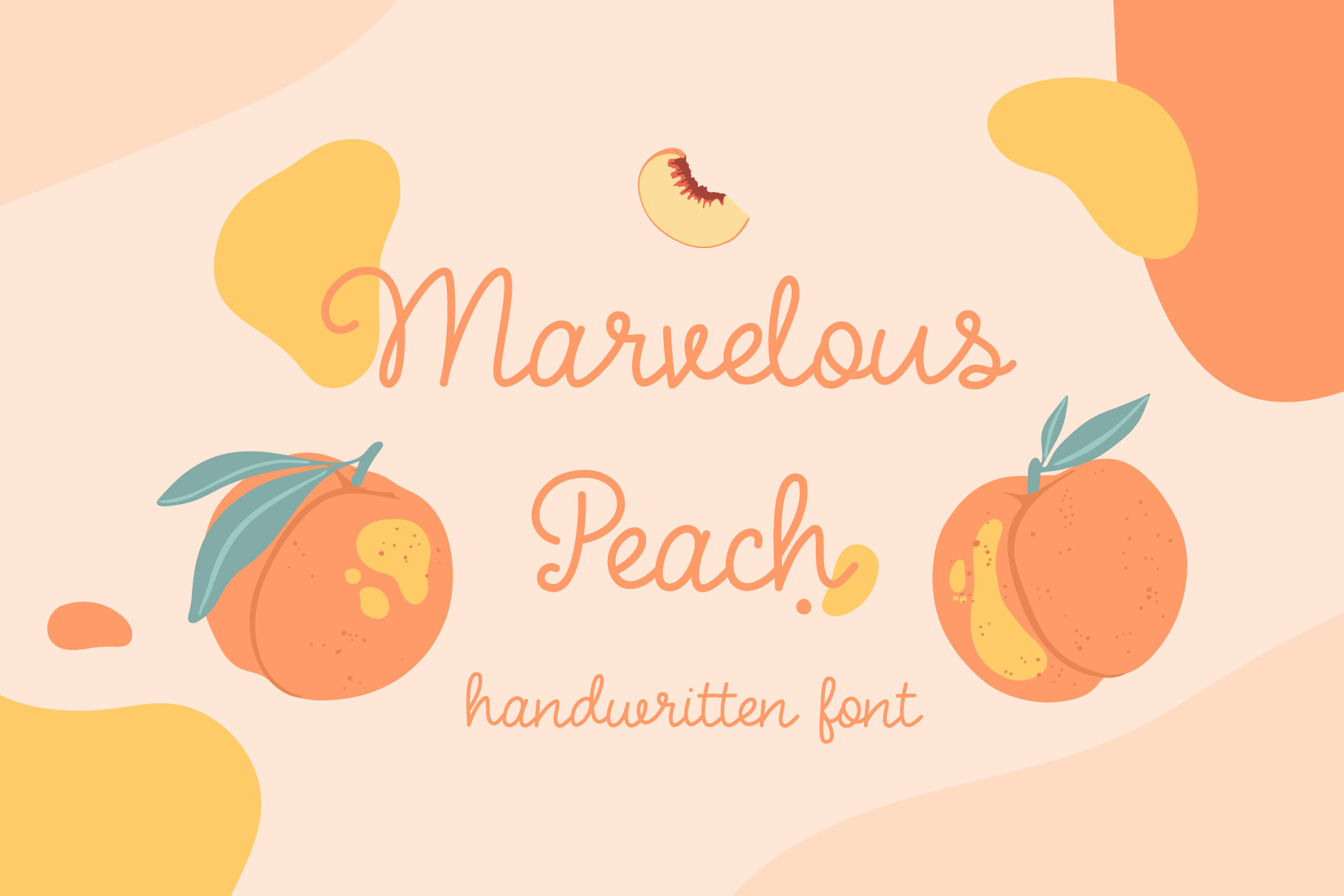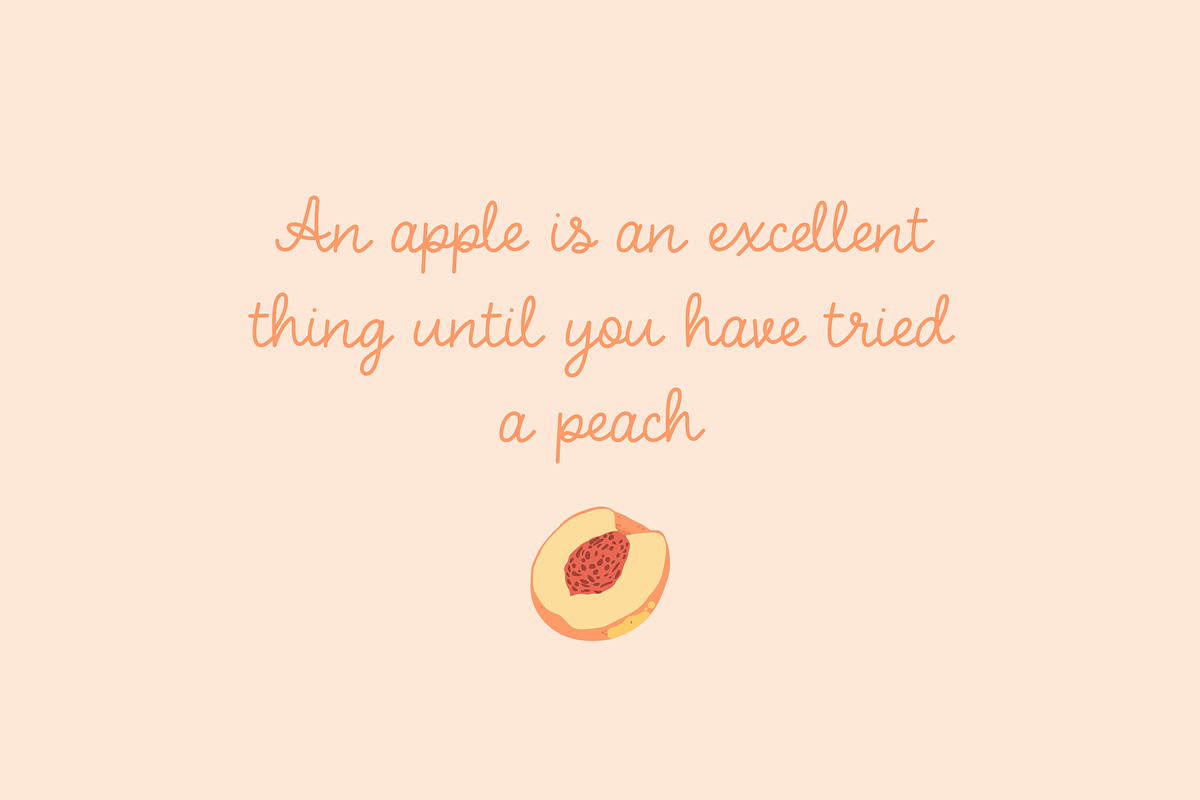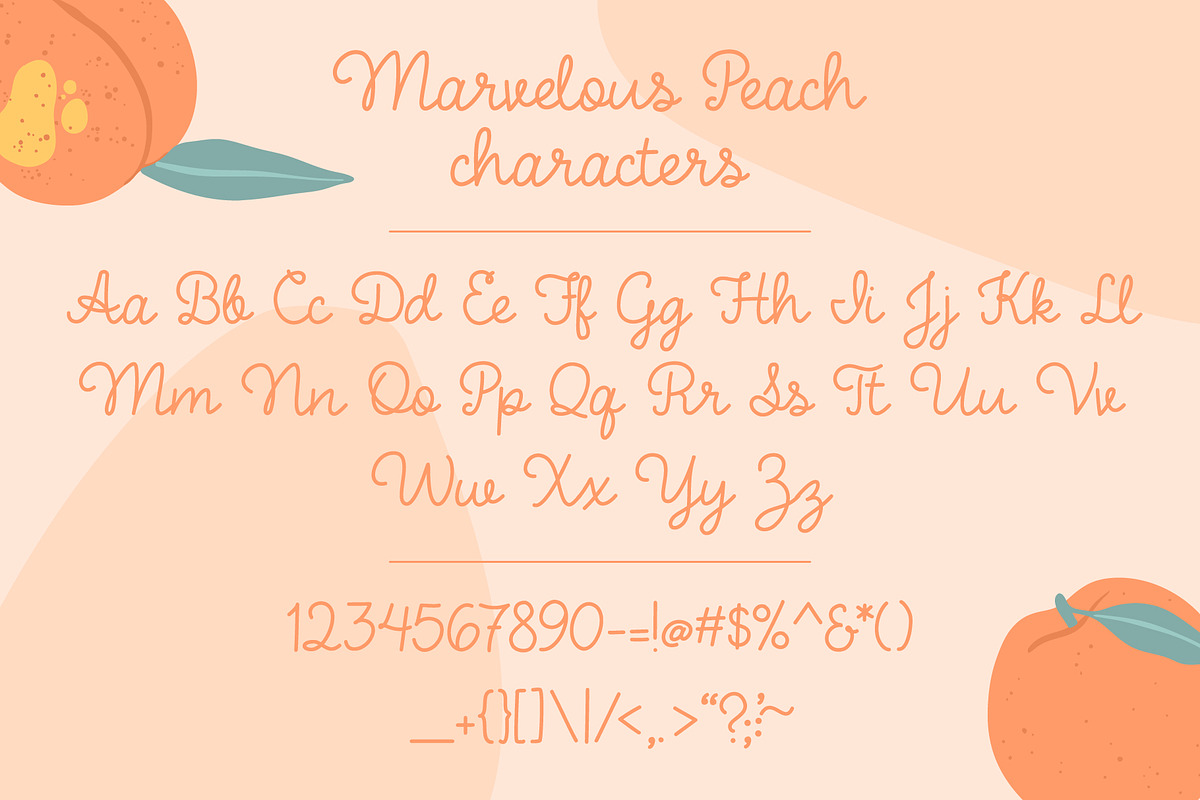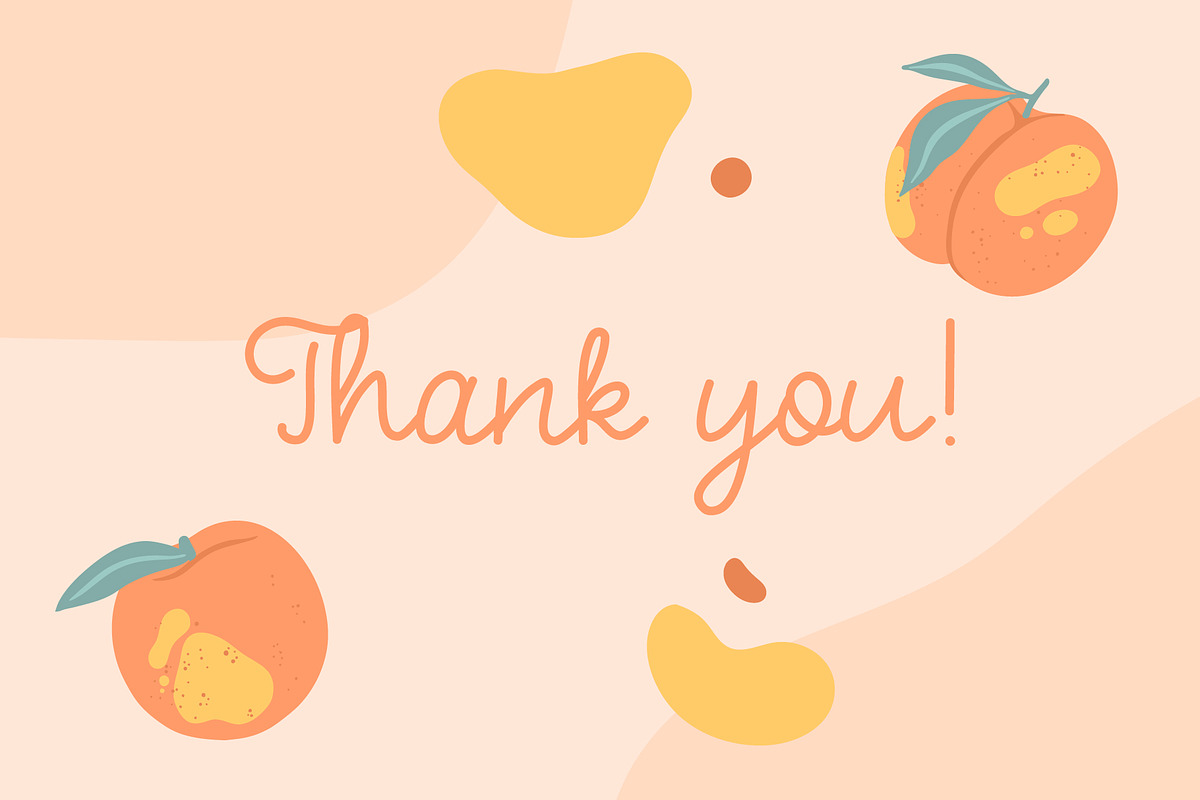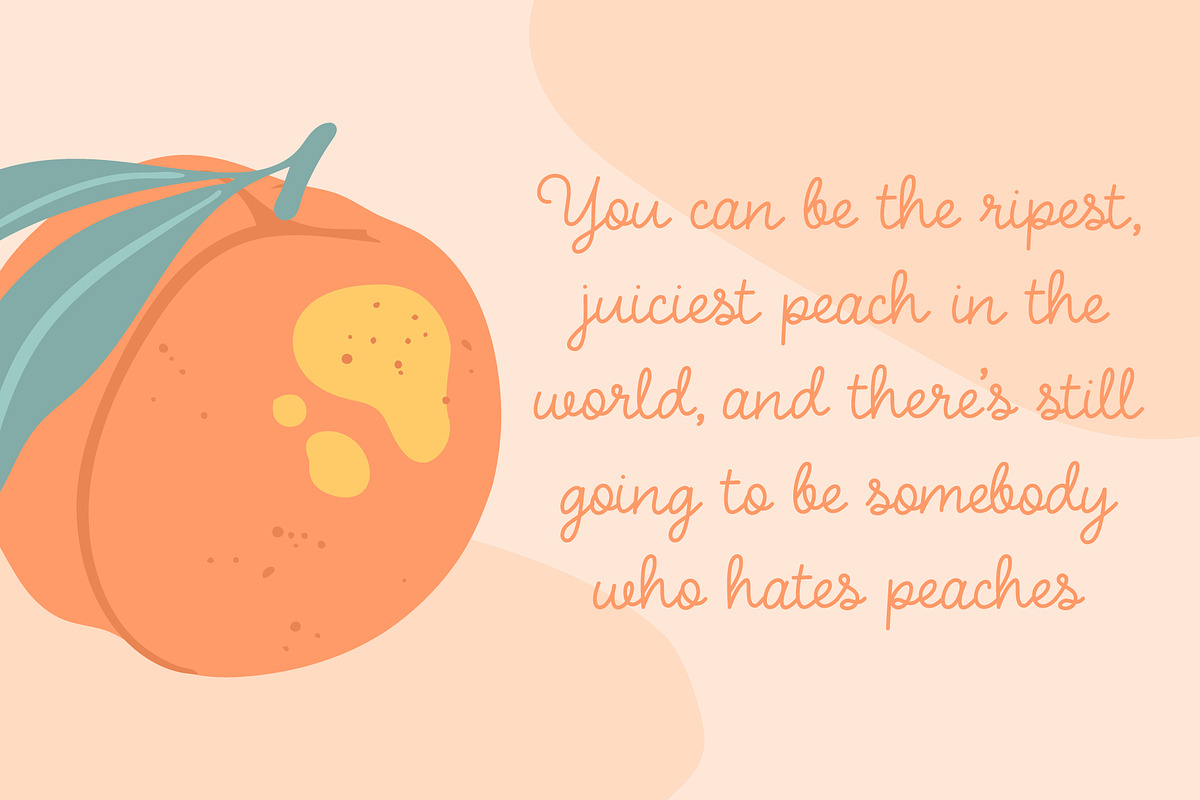
Marvelous Peach | handwritten font
Hi guys! I am pleased to introduce my new font - "Marvelous Peach". It's a simple handwritten font with clean lines. This font is well suited for titles, quotes, phrases. Also it would look great in logos, labels, heading and posters. And this font would looking good on t-shirts.
Marvelous Peach font contains uppercase, lowercase characters, numbers and punctuation.